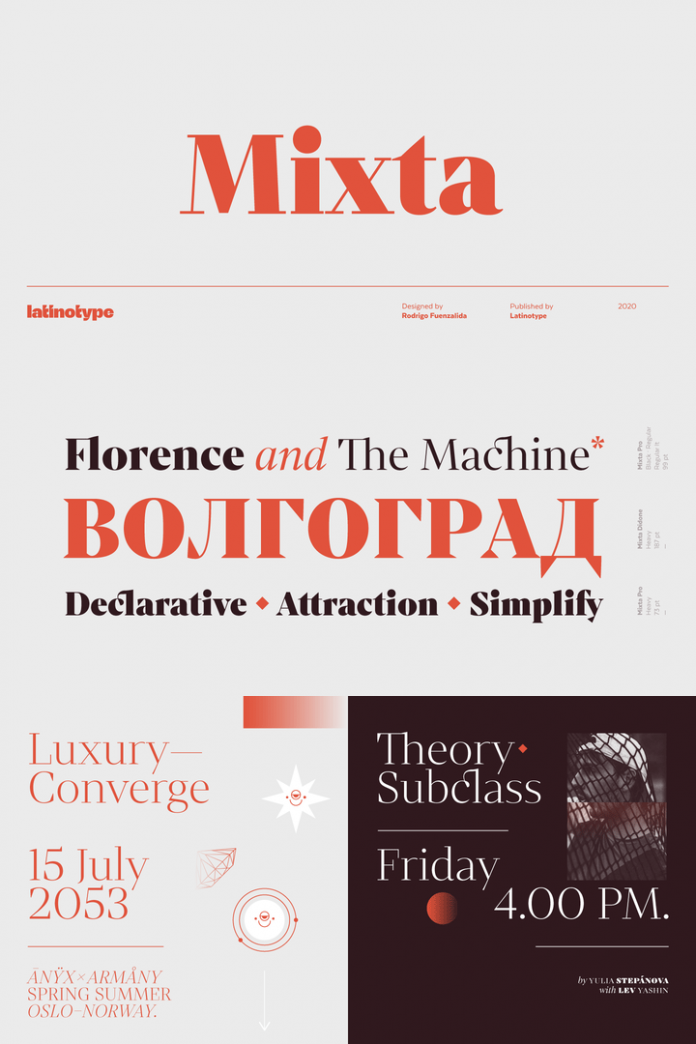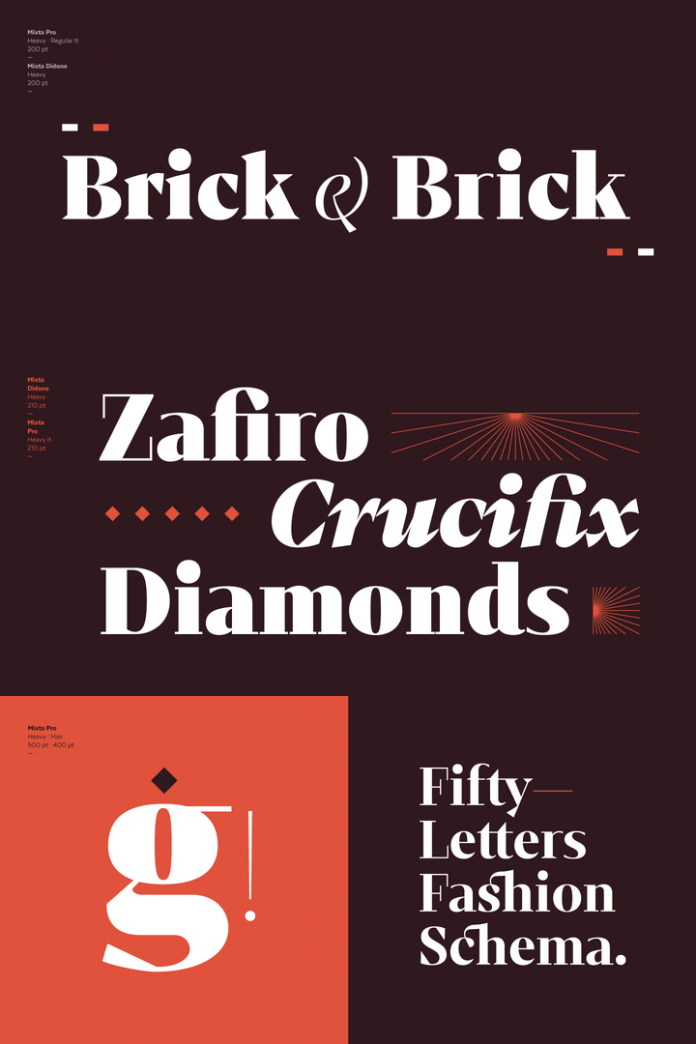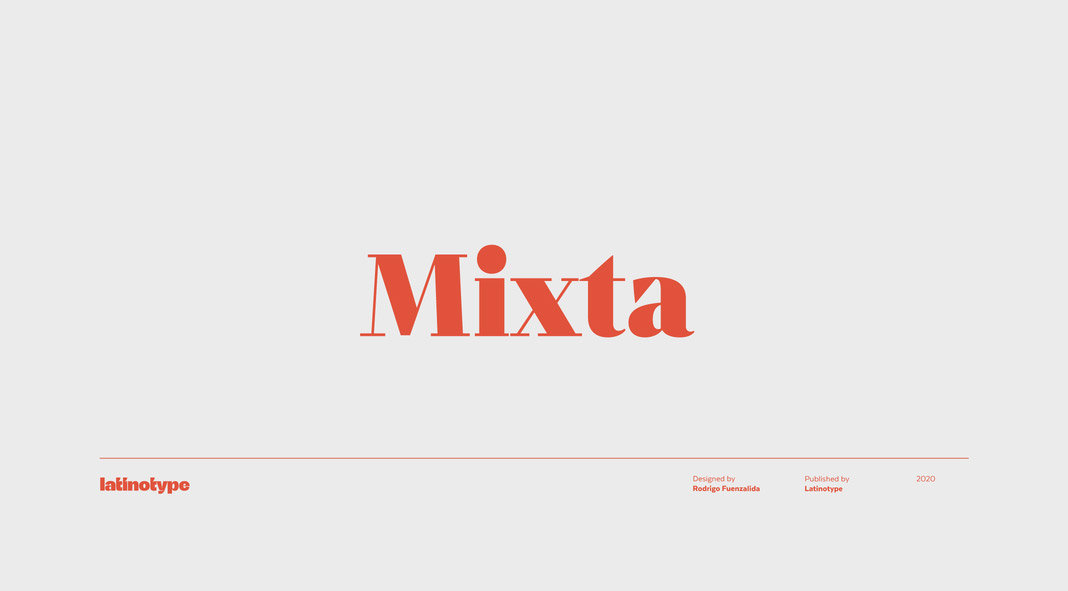
Mixta, a contemporary serif font family with a unique character and well-defined features.
Designed by Rodrigo Fuenzalida and published by foundry Latinotype in 2020, Mixta is a new serif font family that offers unique characteristics and fine features. The font is based on the idea of mixing different types of terminals in order to give the typographic design a singular appearance. Hence, Mixta is composed of diverse styles such as Didone and contemporary typefaces. The complete font family consists of an extensive set of 1,200 characters that support more than 200 Latin-based languages as well as Cyrillic letters. You can use this typeface for a great variety of projects including branding, graphic design, advertising, editorial design, social media, just to name a few. Mixta’s many weights come with matching Italics. In addition, the family includes numerous OpenType features such as small caps, different types of figures, and a wide variety of alternates. To learn more, just have a look at the following images or click on the following link.